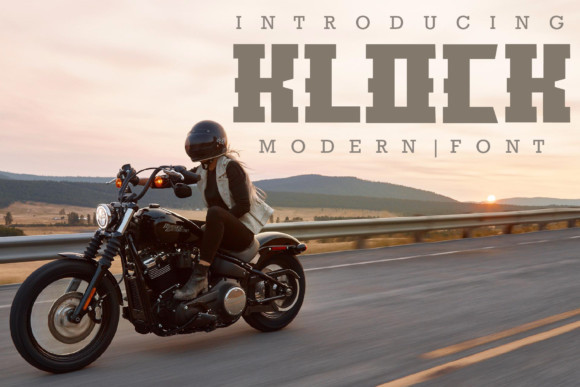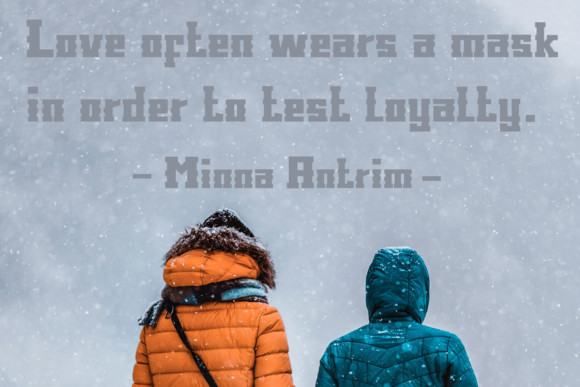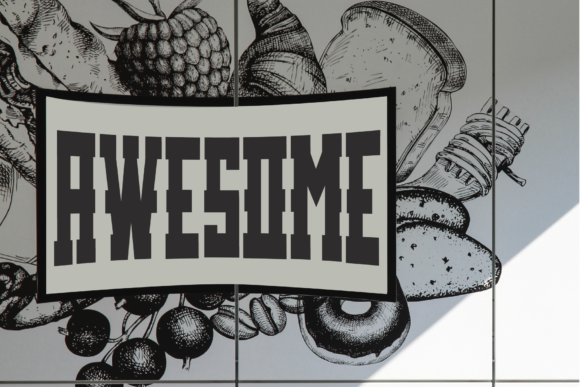
Klock Font
Klock is a modern display font in a unique style. This sharp and blocky font evokes a rough and natural feel, which makes it perfect for a branding, headlines, vintage projects and much more!